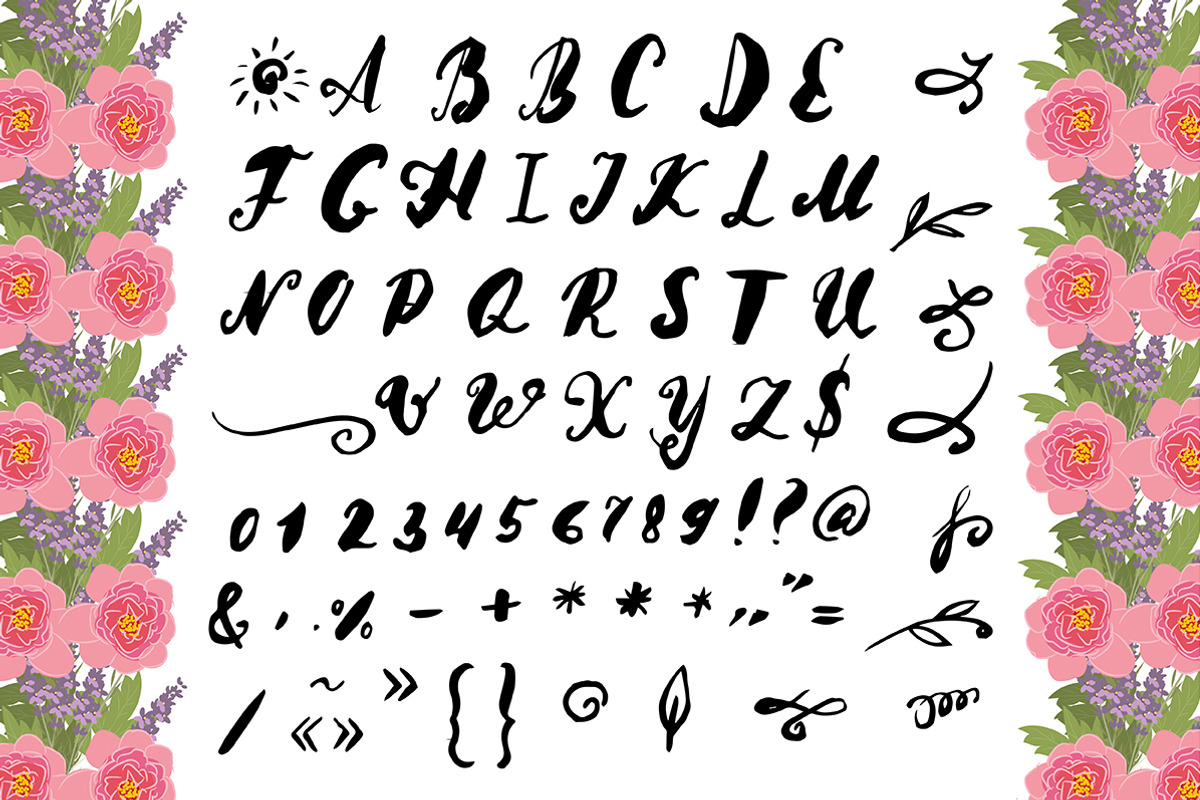
№71 Vector font
№71 Vector font by Rasveta is a font selected for branding, posters, packaging, typography.
- Vector Illustration brush style of calligraphy alphabet lowercase letters and numbers You will receive: 1 illustration EPS, and high quality
Why №71 Vector font is worth a look
№71 Vector font by Rasveta fits naturally into Branding, posters, packaging, typography.